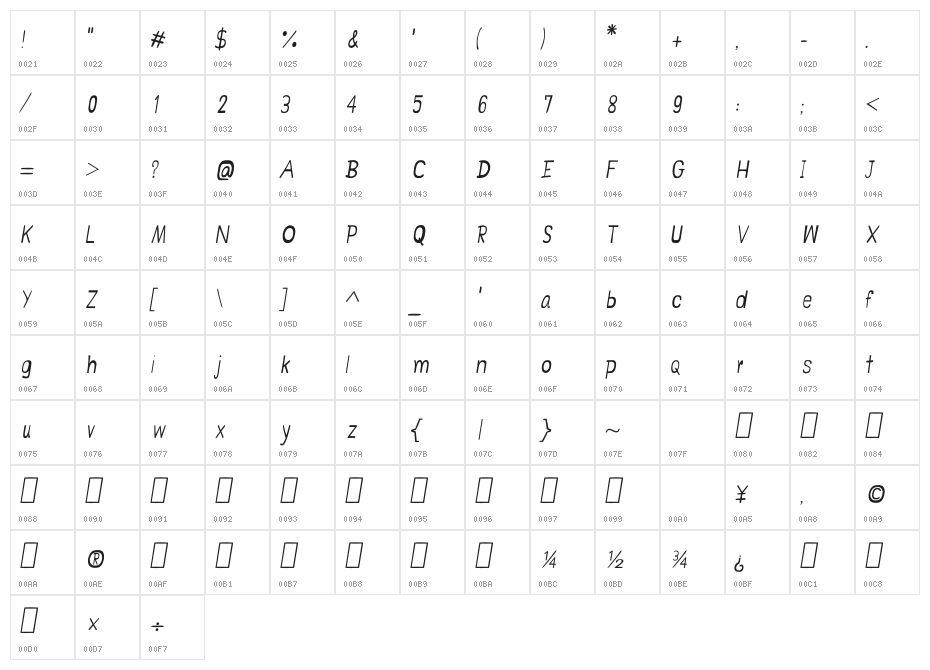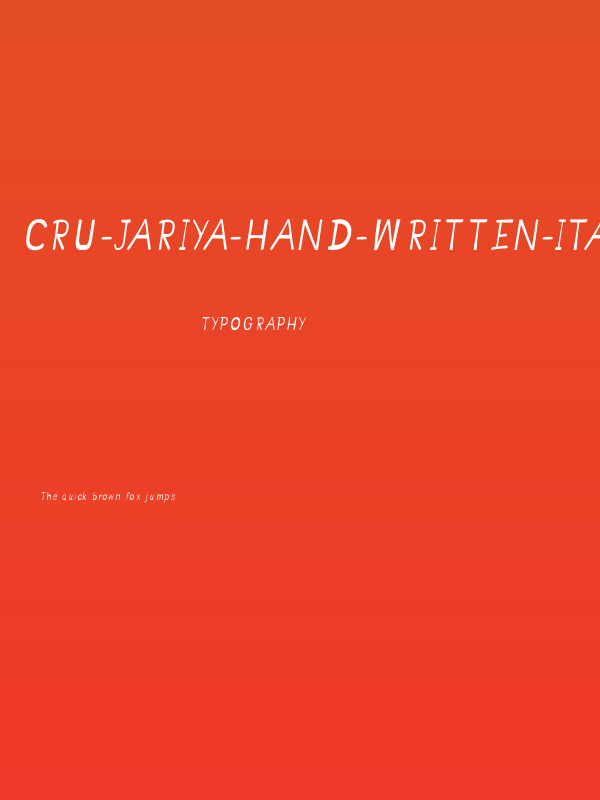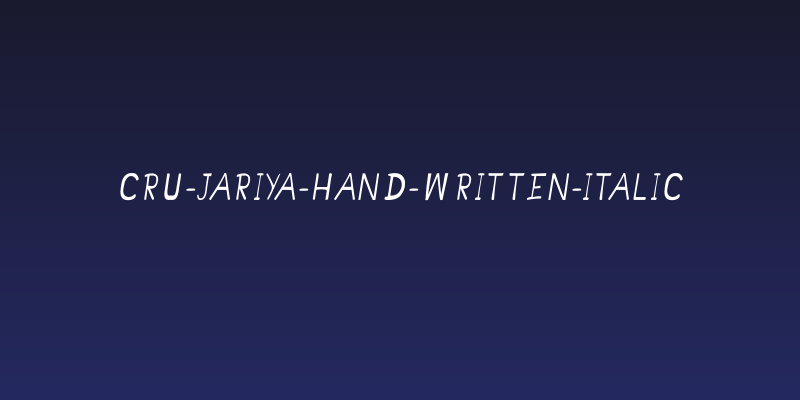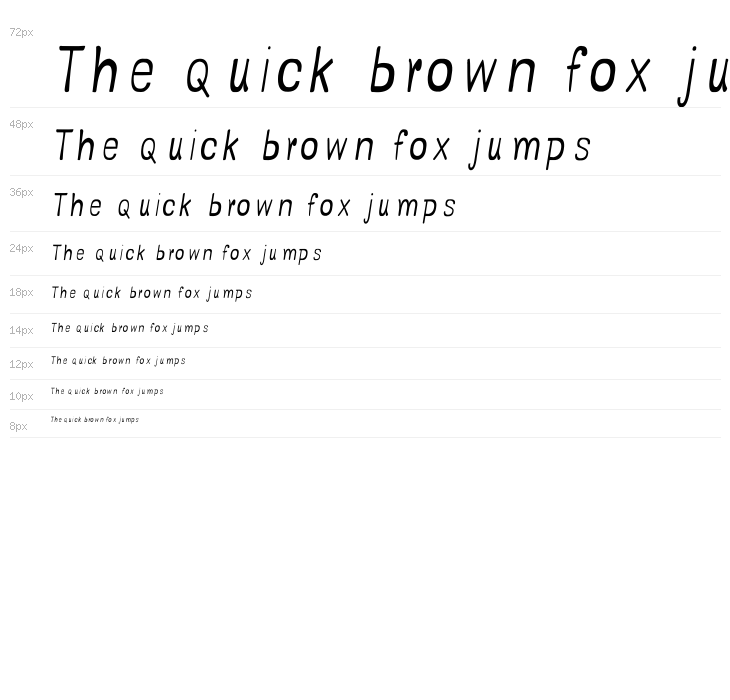
CRU-Jariya-Hand-Written-Italic Font
CRU-Jariya-Hand-Written-Italic Description
This font exudes a casual, handwritten style with a distinct italic slant, giving it a dynamic and personal touch. The characters are slightly uneven, mimicking the natural flow of handwriting. Uppercase letters are bold and prominent, while lowercase letters maintain a consistent style with subtle variations in stroke width. The numerals are clear and legible, complementing the overall aesthetic. Special characters are thoughtfully designed to match the handwritten feel, making this font versatile for various creative projects.
| Overall Style | Casual, Artistic |
| Use Case | Creative projects, Invitations, Personal notes |
| Proposed Projects | Ideal for personal notes, creative invitations, casual branding, and artistic projects. |